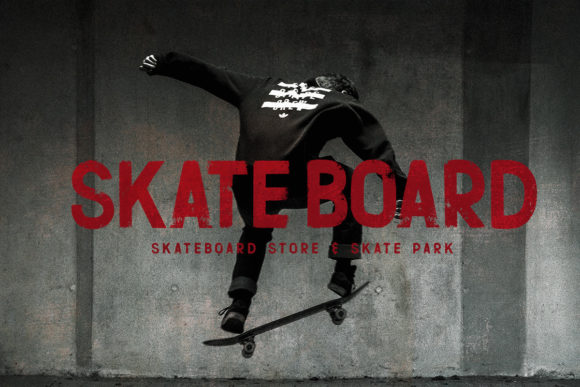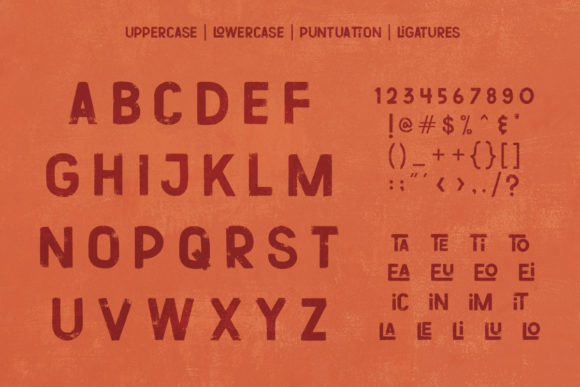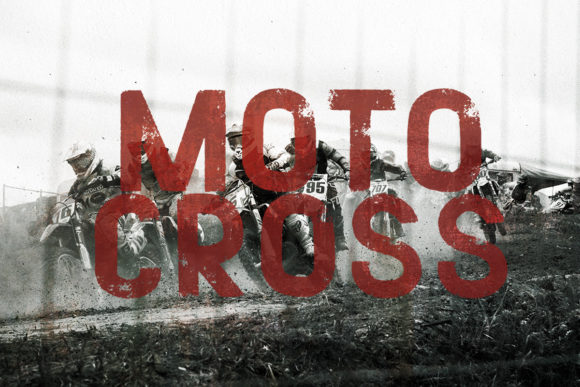
Introduction to Leaking Inside Font
Do you ever have those moments when you’re working on a creative project and you’re struggling to find the perfect font to match your vision? You’ve scoured the internet, browsed through design stores, and even asked fellow designers for recommendations, but nothing seems to fit quite right. That’s when you stumble upon a hidden gem – a font that speaks to you and elevates your entire design to the next level. For many designers, that gem is the Leaking Inside Font.
This bold and rough textured display font is a game-changer for any creative project, from letterheads and titles to stationery. Its unique look and feel will add an extra layer of depth and emotion to your designs, making them truly stand out. And the best part? You can download the Leaking Inside Font for free, complete with a transparent background, making it easy to integrate into your design resource library.
As a valuable design resource, the Leaking Inside Font offers high-quality graphics that are perfect for designers of all levels. Whether you’re working on a personal project or a professional client, this font is sure to impress and deliver results.
Key Features of Leaking Inside Font
- High-quality design resource ideal for creative projects and digital designs
- Unique, modern font with a transparent background, perfect for adding a touch of elegance to your designs
- Includes a range of glyphs and characters to cater to diverse design needs
Honest Review: Leaking Inside Font
As a designer, I’m always on the lookout for unique and high-quality design resources to elevate my creative projects. Recently, I had the chance to try out the Leaking Inside Font, and I’m excited to share my honest review with you.
- Unique and quirky design style that adds a touch of personality to any project
- High-quality font that’s perfect for digital and print designs
- Transparent background makes it easy to use on any background or design element
- Limited character set, which may not be suitable for longer text-based projects
- Some characters may not display correctly on certain devices or platforms
Overall, I was impressed with the Leaking Inside Font, and I think it’s a great addition to any designer’s toolkit. While it has some limitations, its unique design style and high-quality font make it a valuable resource for creative projects. If you’re looking for a fun and quirky font to add some personality to your designs, the Leaking Inside Font is definitely worth checking out.
How to Use Leaking Inside Font
The Leaking Inside Font is a unique and creative design resource perfect for adding a touch of elegance to your projects. This high-quality font features a transparent background, making it ideal for use on various backgrounds.
- Use the font in creative projects, such as invitations, posters, and social media graphics.
The Leaking Inside Font is perfect for a variety of design projects, including:
- Wedding invitations and stationery.
- Business cards and logos.
- Social media graphics and ads.
- Posters and flyers.